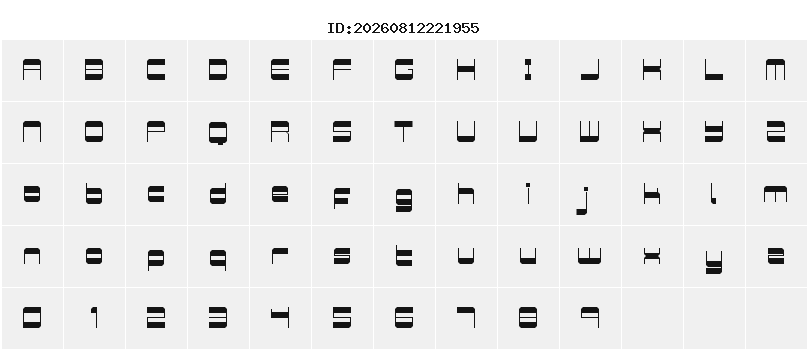
Retro Mania Preview
• Font Name: Retro Mania
• Font ID: FontStruct Retro Mania
• Full Font Name: Retro Mania Regular
• PostScript Name: Retro-Mania
• Character Count: 84
• Designer: cablecomputer
• Description: “Retro Mania” was built with FontStruct
About Retro Mania.ttf
Retro Mania.ttf is a modern, elegant sans-serif font designed for ultimate readability and visual harmony. Perfect for branding, headlines, web design, and print materials.